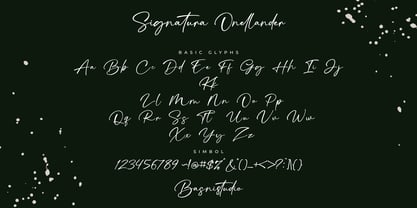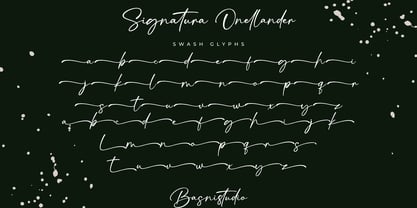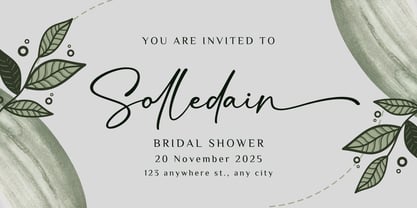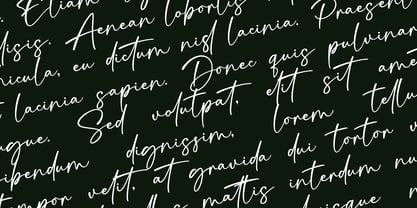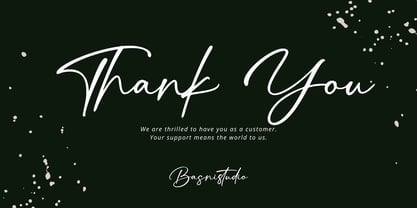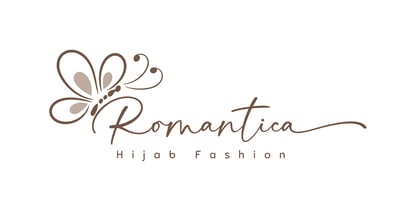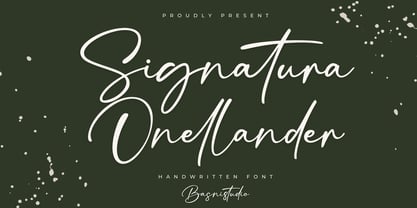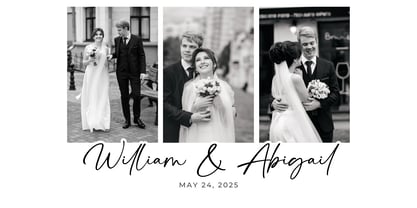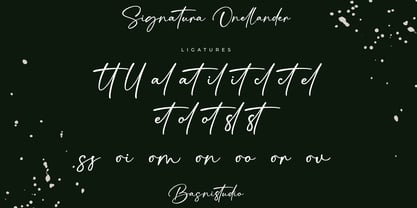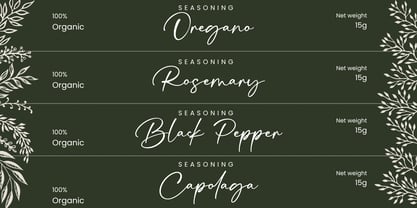
Signatura Onellander
by Basnistudio
The Signatura Onellander Font Family was designed by Bery Arisandi and published by Basnistudio. Signatura Onellander contains 1 styles. More about this family
The Perfect Handwritten Touch for Your Designs
Looking for a font that brings warmth, personality, and authenticity to your projects? Signatura Onellander a Handwritten Font that adds a elegant, versatile touch to everything from branding and social media to invitations and packaging.
Elegant & Versatile – Perfect for logos, quotes, greeting cards, and more
Authentic Handwritten Feel – Created with real pen strokes for a natural look
Whether you’re building a powerful brand identity or crafting a standout logo, Signatura Onellander a Handwritten Font
gives you the creative edge you need.
• Uppercase & lowercase letters
• Ligature
• Numbers & punctuation